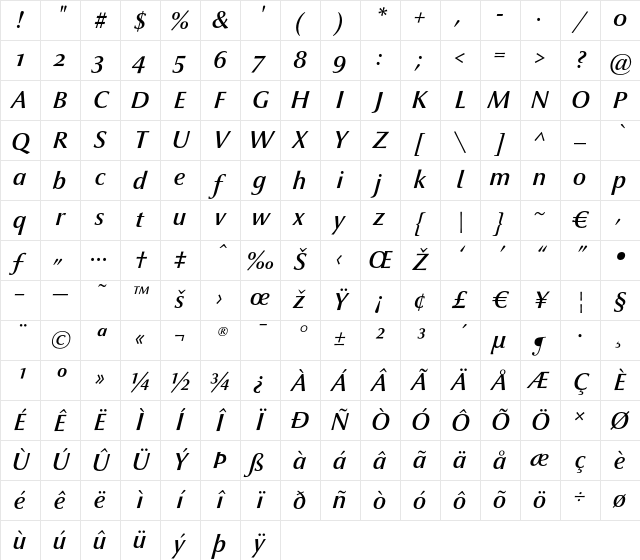
Optima nova LT Demi Italic Old Style Figures
Style: Demi Italic Old Style Figures
Design Context for Optima nova LT
Optima nova LT is a composed and adaptable typeface that performs quietly and consistently across a wide range of design contexts. The slanted form adds forward momentum and visual energy. Its slender proportions lend an understated elegance to any composition.
Pro Tip: Use Optima nova LT for emphasis, pull quotes, and subheadings where its slanted energy can add rhythm to the layout.